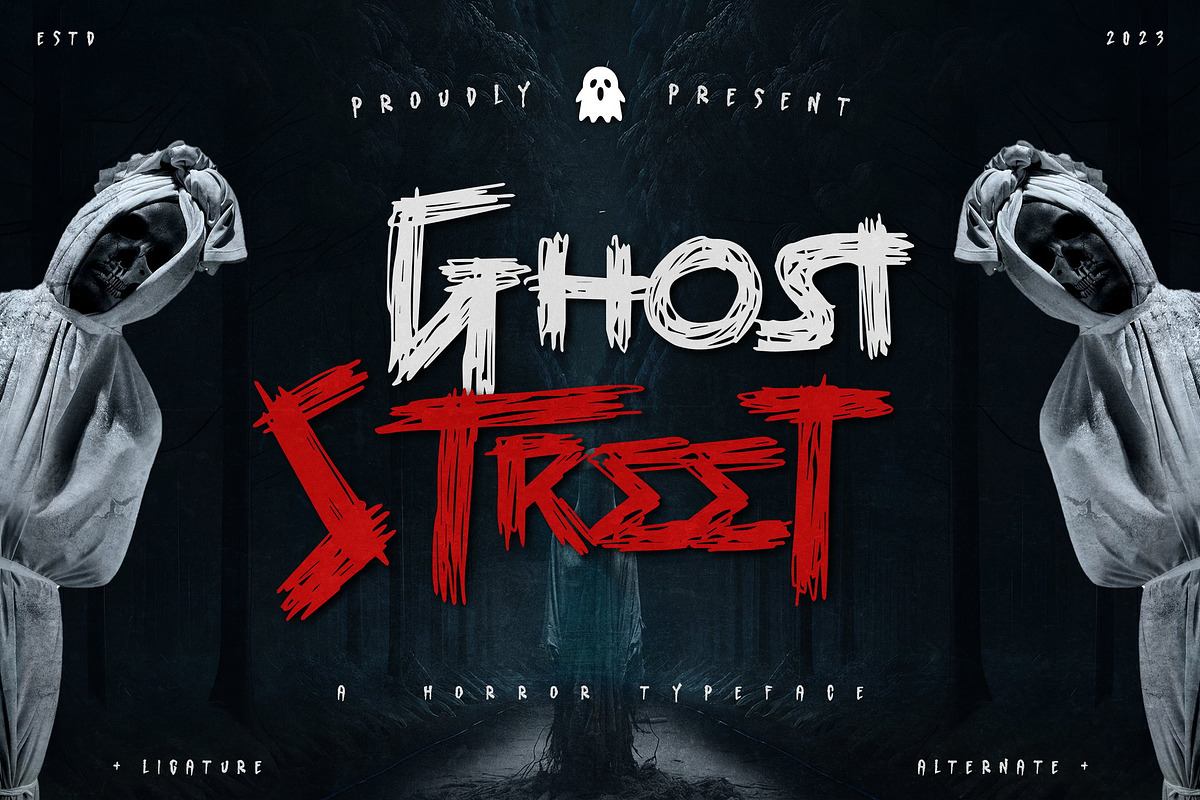
Ghost Street - A Horror Typeface Free Download
Ghost Street – A Horror Typeface Free Download
Ghost Street – A Horror Typeface Free Download is a chilling and spooky font designed to bring an eerie, haunted atmosphere to your designs. With its distorted, jagged edges and unsettling letterforms, Ghost Street is perfect for horror-themed posters, event flyers, Halloween graphics, and anything that requires a dark, ominous aesthetic.
The font’s rough, ghostly design and unsettling vibe make it ideal for creating creepy titles, logos, and visual art that need to leave a lasting impression. Whether you’re working on a horror film promotion, haunted house flyers, or spooky branding, Ghost Street will give your typography the perfect touch of terror.